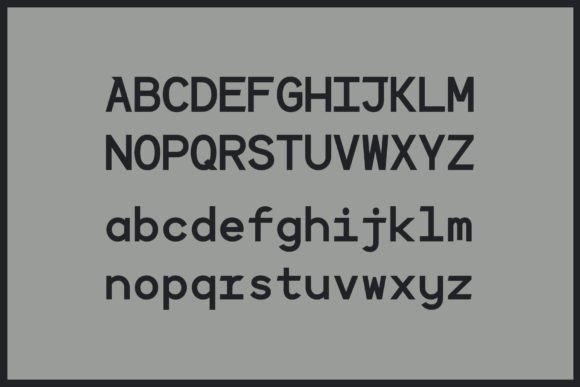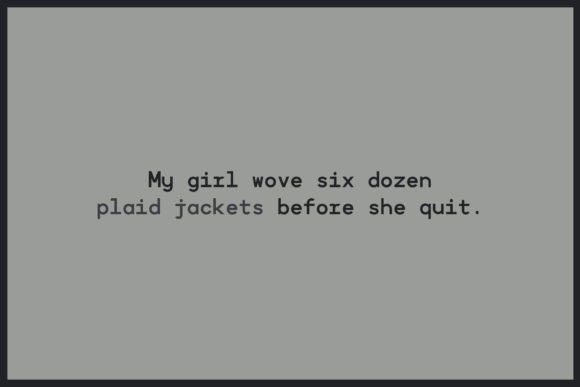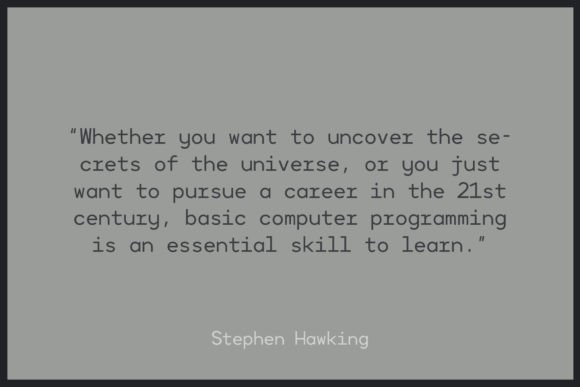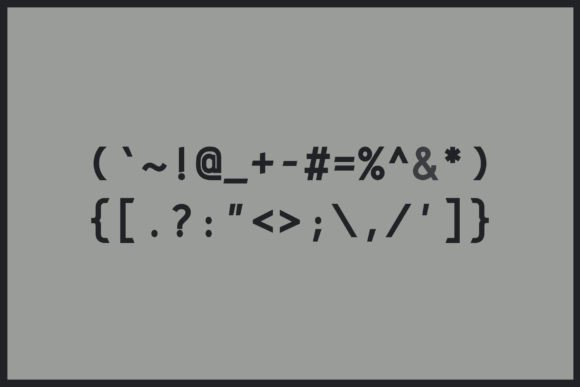
Introduction to Rewind Font
Rewind is a technical monospaced sans-serif typeface.
The font was inspired by 1980s portable cassette players Rewind has an industrial vibe, which makes it great for branding, technology projects, social media, stationary, packaging, airline industry, subtitles for movies, ads, and more.